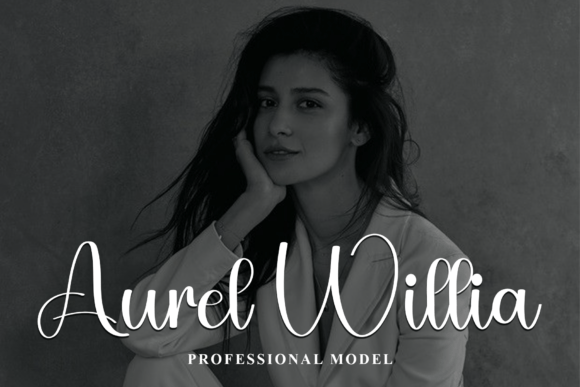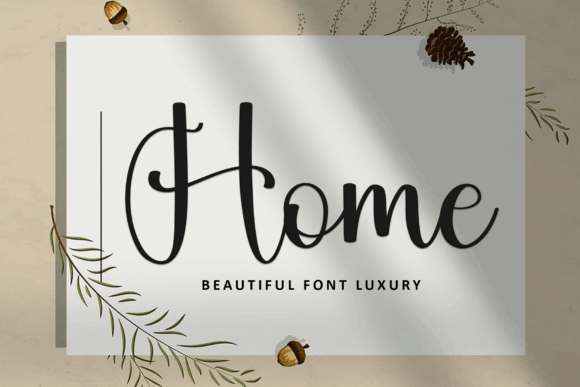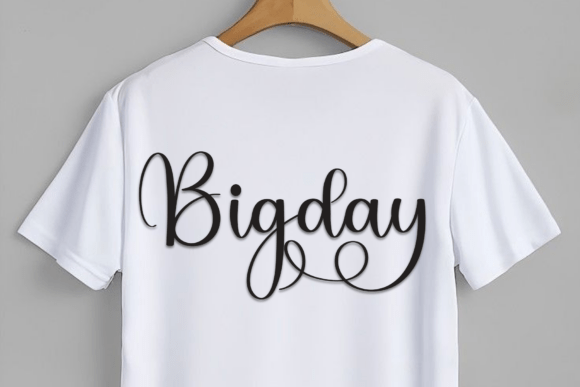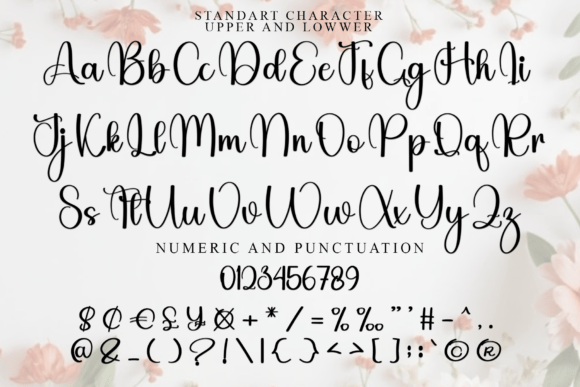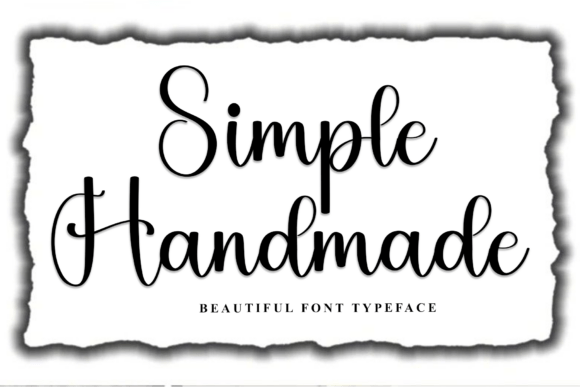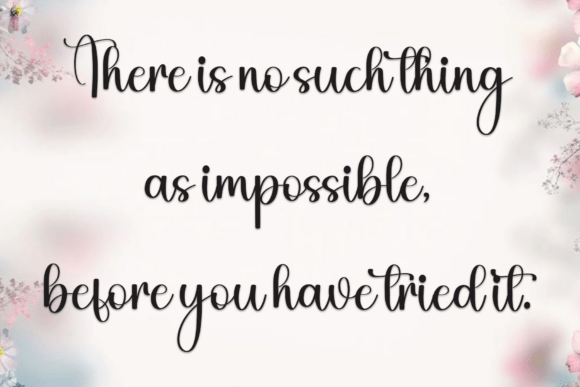
The Magic of Flowery Font: Elevate Your Holiday Designs
It’s that time of the year again – the holiday season is just around the corner, and with it comes the pressure to create stunning designs that capture the spirit of the festivities. I still remember the year I was tasked with designing a Christmas card for my family’s annual holiday greeting. I spent hours scouring the internet for the perfect font, only to end up with a bland, generic typeface that failed to convey the cheer and joy I wanted to express. Fast forward to today, and I’m excited to share with you a game-changing font that would have made my holiday design dreams come true: Flowery Font.
What Makes Flowery Font So Special?
Flowery is a festive and merry typeface that embodies the essence of the holiday season. With its decorative elements and whimsical flair, it adds a touch of enchantment to your designs. This font is perfect for greeting cards, gift tags, and holiday-themed projects, bringing a cheerful and nostalgic ambiance to your words.
An Honest Review of Flowery Font
- 🎉 Festive and fun design that’s perfect for holiday projects
- 🌟 Whimsical flair that adds a touch of magic to your designs
- 👍 Highly legible, even in smaller font sizes
While Flowery Font is an amazing addition to any designer’s toolkit, there are a few minor limitations to be aware of:
- 🤔 May not be suitable for formal or professional designs, as it’s quite playful
- ⚠️ Some users may find the font a bit too ornate for their taste
The Backstory of Flowery Font
Flowery Font was designed by a team of creatives who wanted to capture the magic and wonder of the holiday season. Inspired by traditional holiday decorations and vintage typography, they created a font that’s both festive and elegant. The result is a beautiful, whimsical typeface that’s perfect for adding a touch of enchantment to your designs.